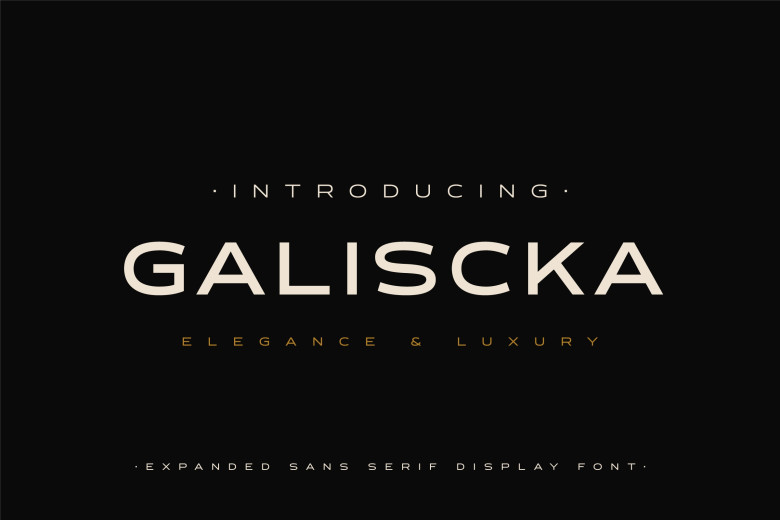
Galiscka Font
GALISCKA can be described as the latest show font featuring an elegant extended character layout. SANS SERIF fonts have become one of the most widely-used choices for branding design and graphic design today; GALISCKA gives graphic designers one of the least expensive (but premium quality) solutions available to them that will help make their designs truly stand out – while still maintaining an elegant, classy and aesthetic appearance without forgoing serif fonts.
Galiscka Display Font